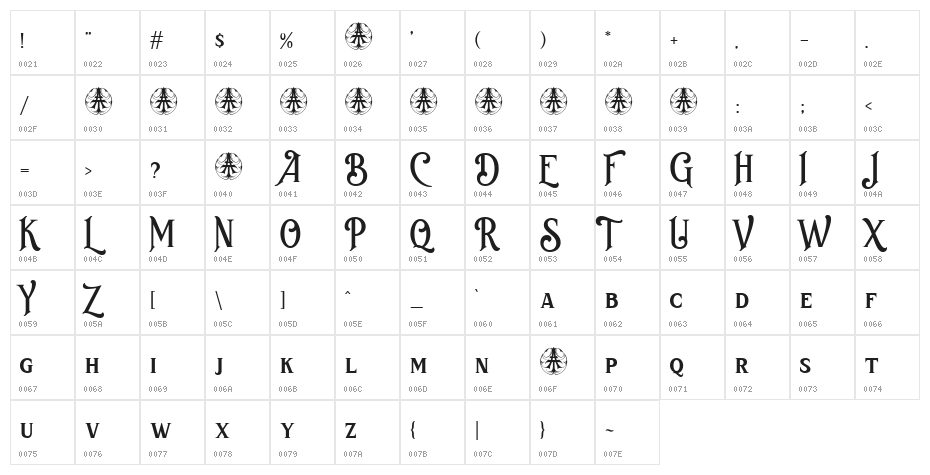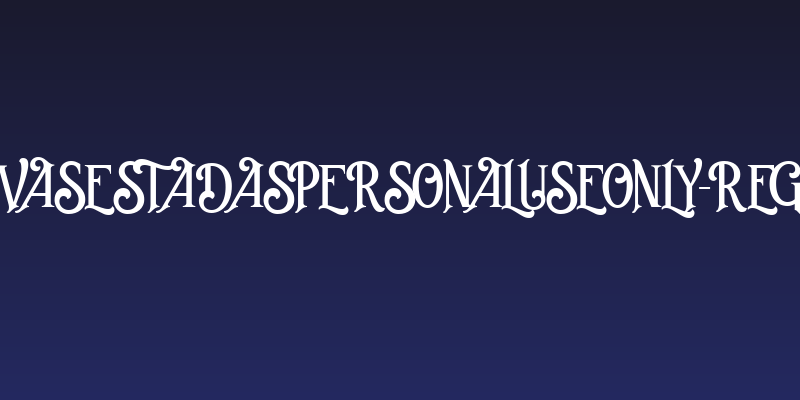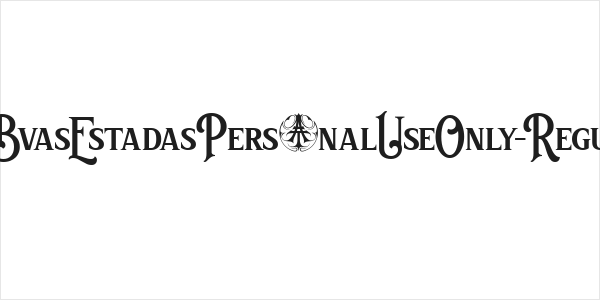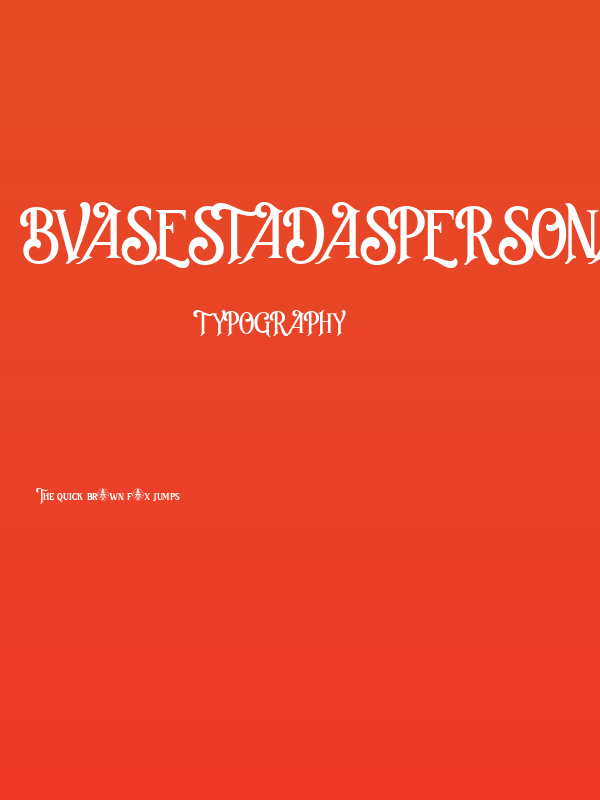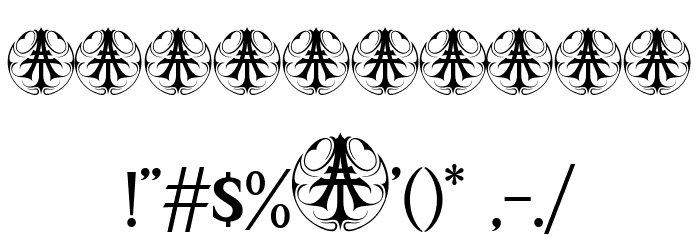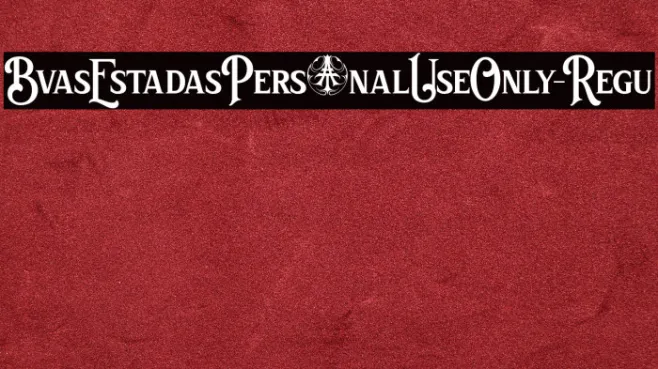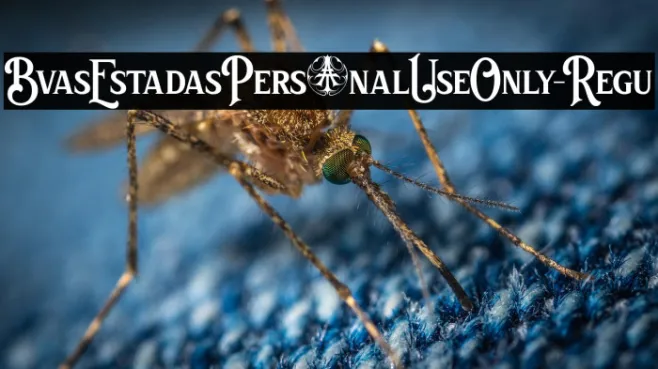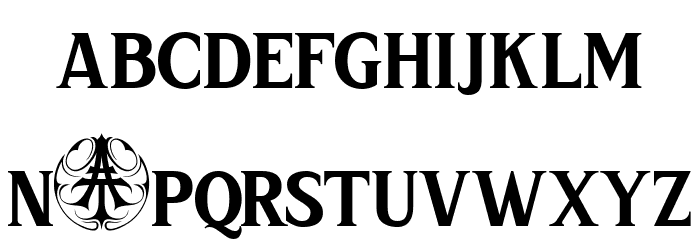
BvasEstadasPersonalUseOnly-Regu Font
BvasEstadasPersonalUseOnly-Regu Description
This font features an ornate and decorative style, with elaborate curves and flourishes that give it a distinct, artistic appearance. The uppercase letters are particularly embellished, with intricate details that make them stand out. The lowercase letters maintain a more straightforward design but still carry a touch of the decorative elements seen in the uppercase set. The numerals and special characters are consistent with the overall aesthetic, adding a cohesive look to the font. This typeface is ideal for projects that require a touch of elegance and sophistication, such as invitations, branding, or artistic designs.
| Proposed Projects | Ideal for invitations, branding, artistic designs, and decorative projects. |